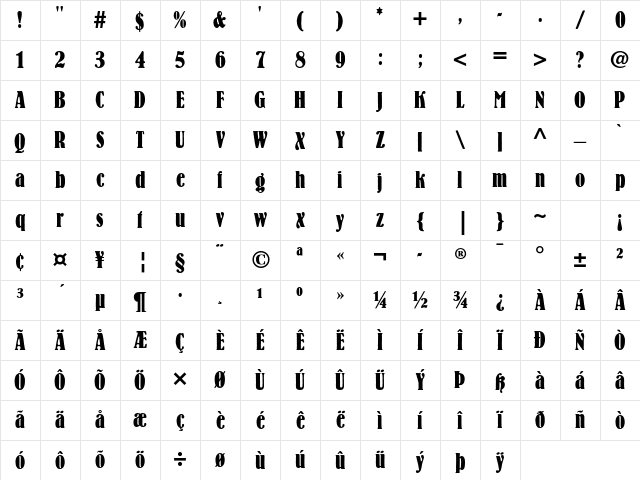
Bernhard Std Bold Condensed
Style: Bold Condensed
Designer: Lucian Bernhard
Complete Bernhard Std Bold Condensed glyph index. Displaying only characters natively supported by Bernhard Std Bold Condensed font.
Design Context for Bernhard Std
Bernhard Std is a composed and adaptable typeface that performs quietly and consistently across a wide range of design contexts. Its bold stroke weight gives it real presence on the page. Its narrow stance lets it pack a punch even in space-constrained designs.